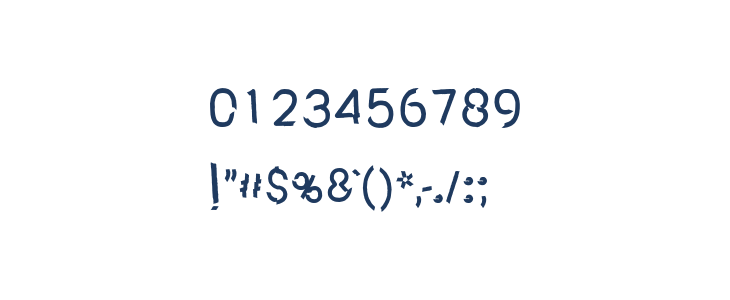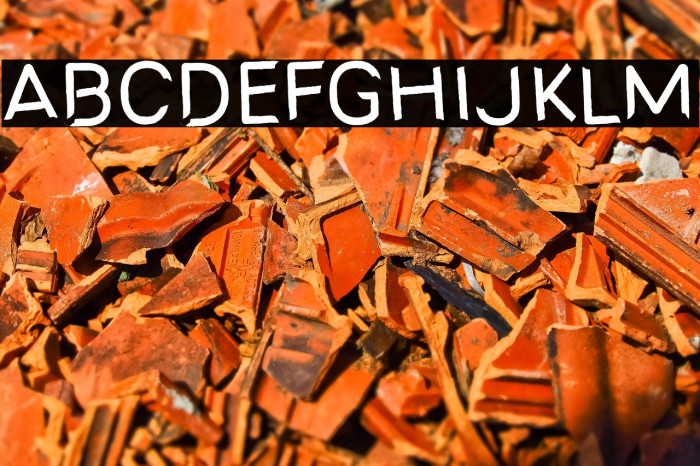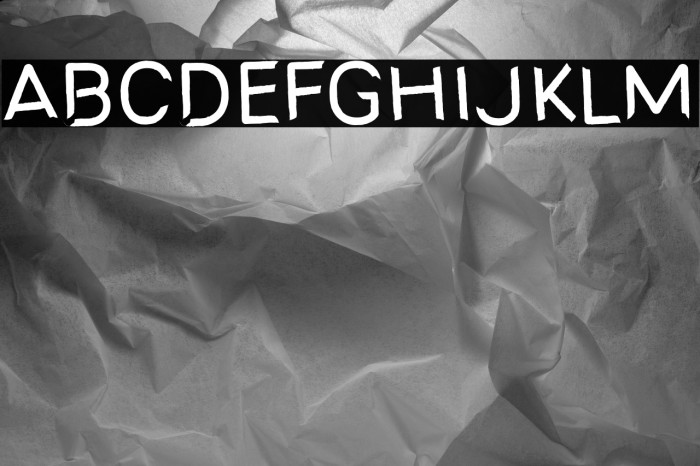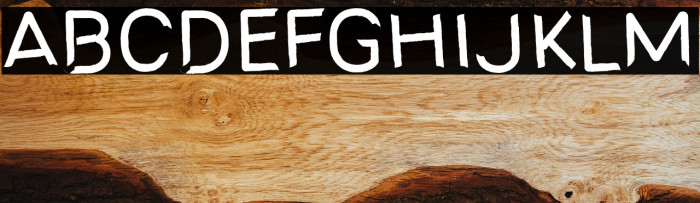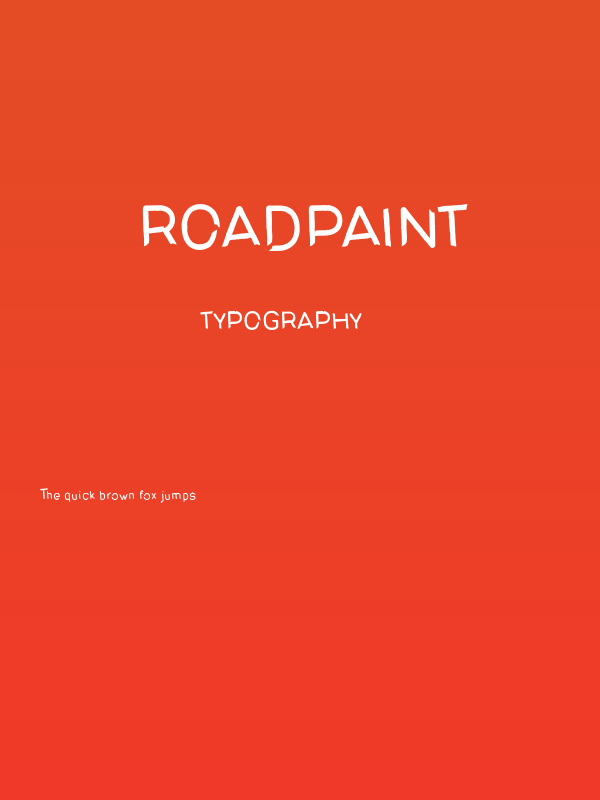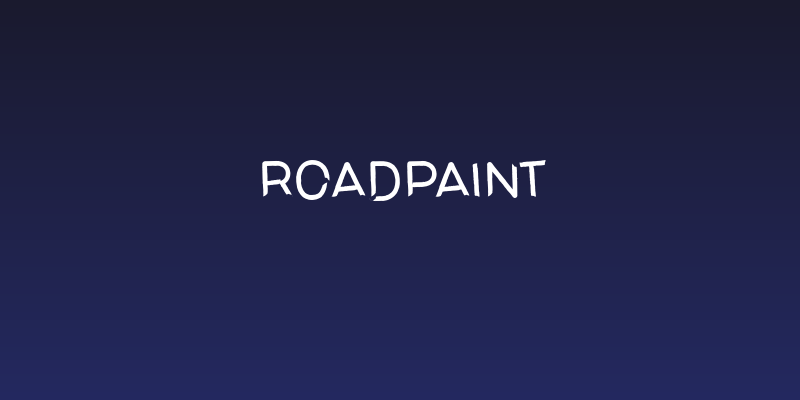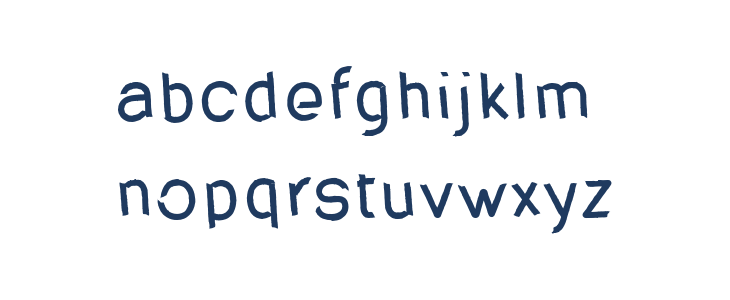
RoadPaint Font
RoadPaint Description
This font features a bold, hand-painted style reminiscent of road markings. The characters are slightly irregular, giving them a unique, organic feel. The uppercase letters are strong and assertive, while the lowercase letters maintain a consistent flow. Numbers and special characters follow the same bold and slightly rough aesthetic, making them stand out. The overall appearance is both functional and artistic, suitable for projects that require a touch of rugged authenticity.
| Use Case | Headlines, Logos, Signage |
| Proposed Projects | Ideal for street art designs, urban-themed posters, signage, and branding that requires a bold, authentic touch. |